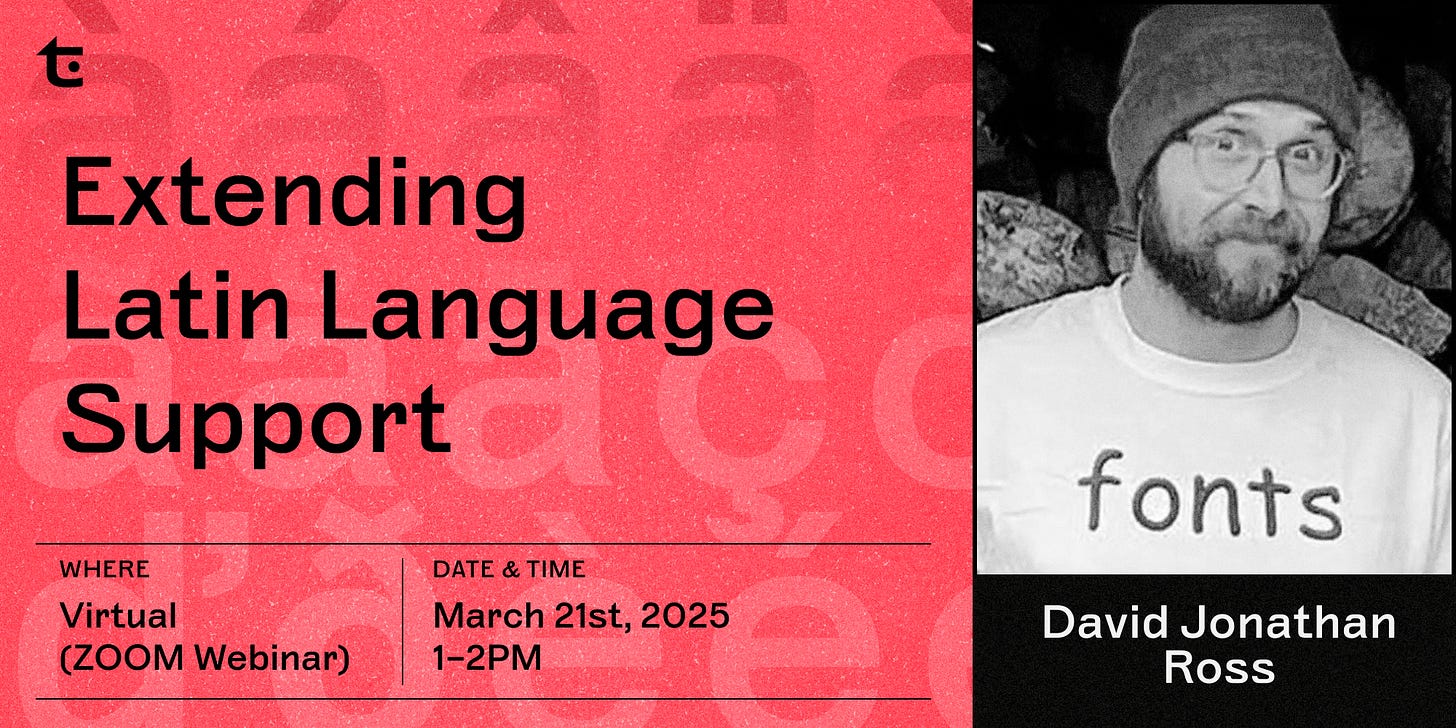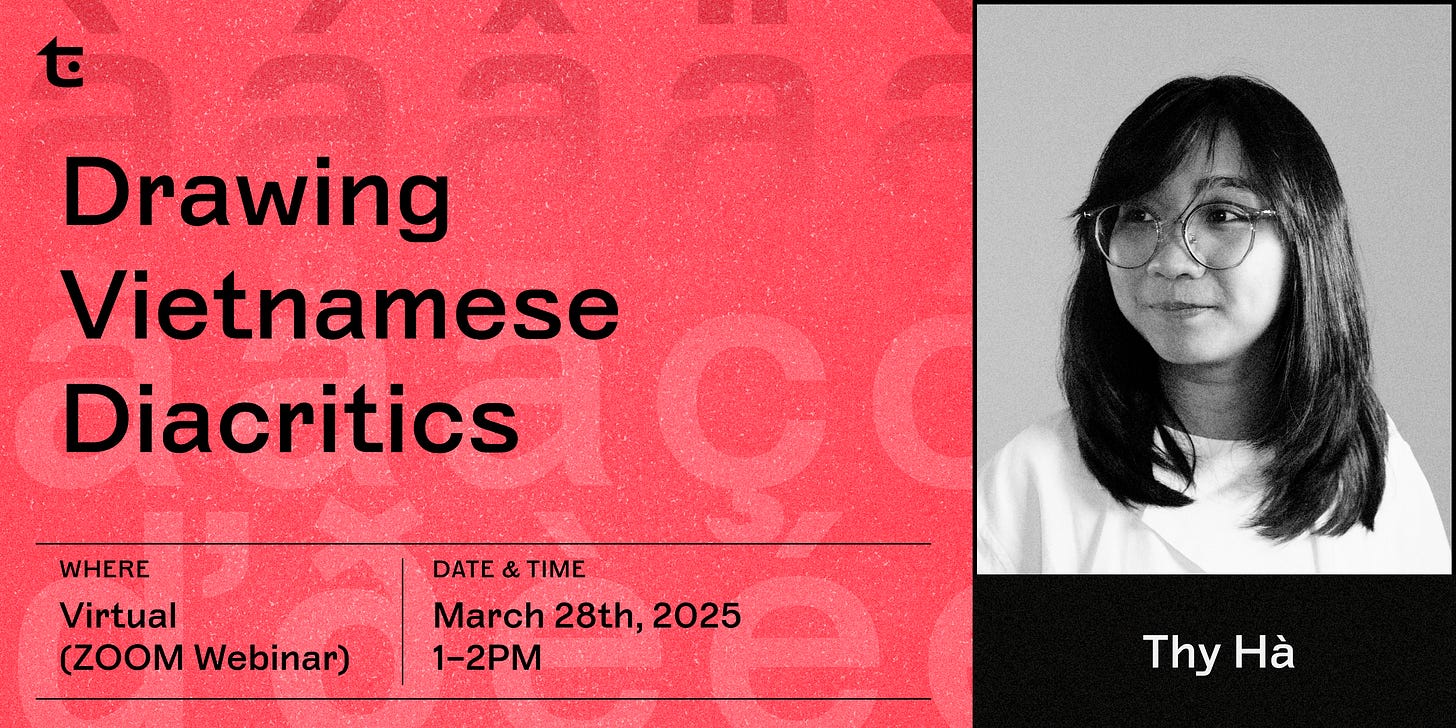
March 28th | Drawing Vietnamese Diacritics with Thy HÃ
In this session we’ll be speaking with Thy Hà about Drawing Vietnamese Diacritics, one of the most complex diacritic systems in the Latin script. We’ll explore the nuances of designing Vietnamese diacritics, from structural considerations to ensuring clarity and legibility across different type styles. We'll also dive into broader questions: How do diacritics shape the reading experience? What are common design pitfalls? And how can type designers better support Vietnamese language?
March 21st | Extending Latin Language Support with David Jonathan Ross
In this session we’ll be speaking with DJR about Extending Latin Language Support, exploring both the technical challenges and cultural considerations involved in expanding type design beyond basic Latin. From crafting diacritics to drawing localized forms, we’ll discuss key aspects of multilingual type development. We'll also dive into broader questions: How do we navigate the complexities of language support? Whose standards are we following? Is there even a standard?